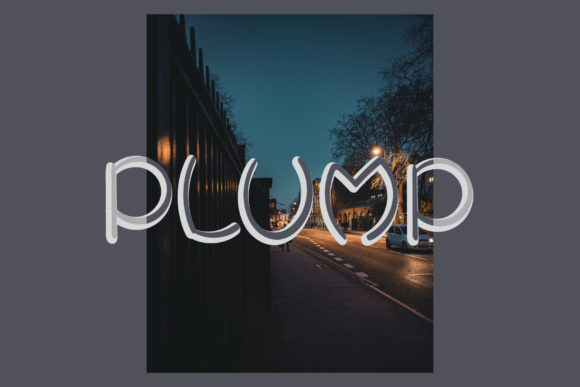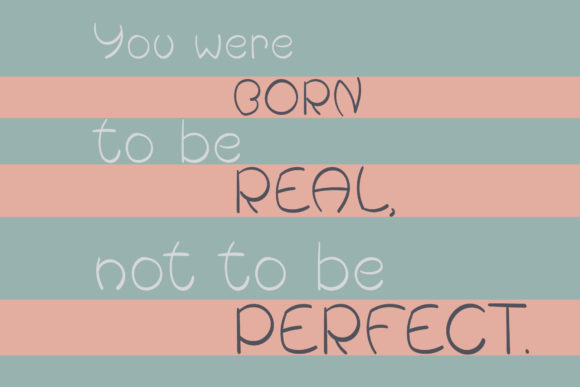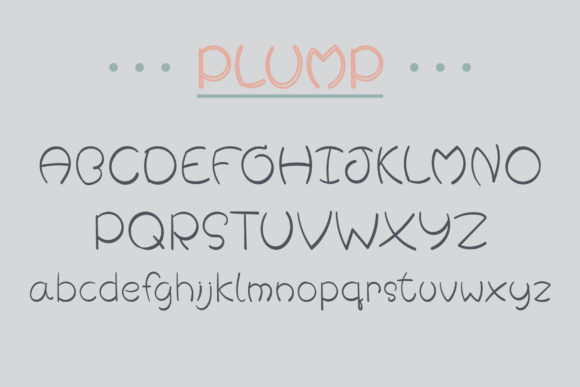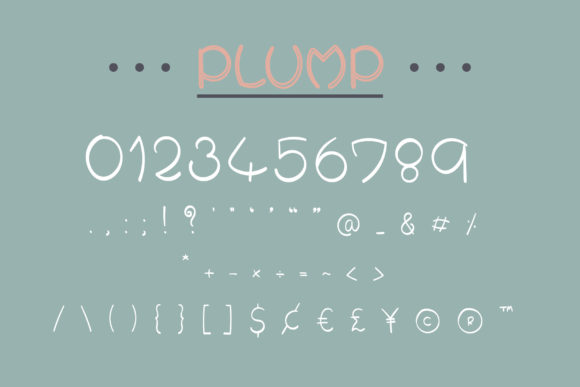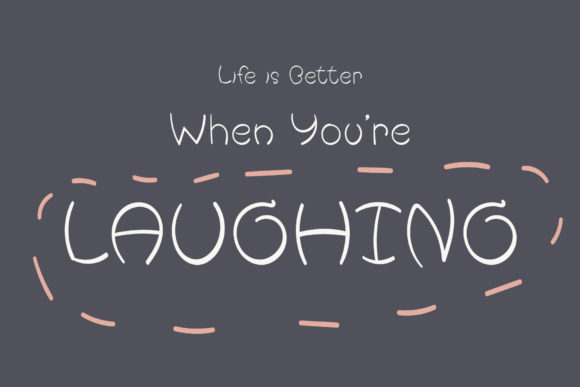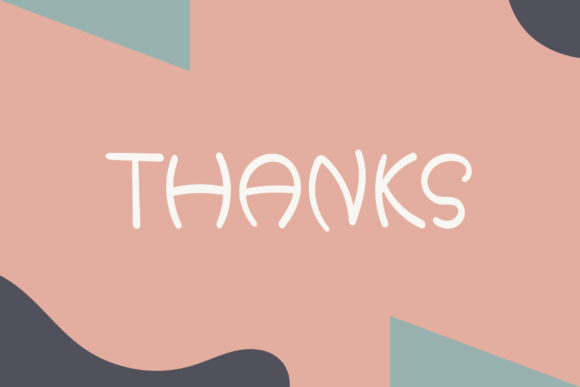
Plump Font
About Plump Font
Plump is a cute and casual handwritten font with an incredibly friendly feel. Whether you’re looking for fonts for Instagram or calligraphy scripts for DIY projects, Plump will turn any creative idea into a true piece of art!